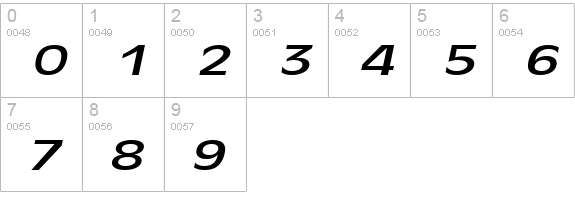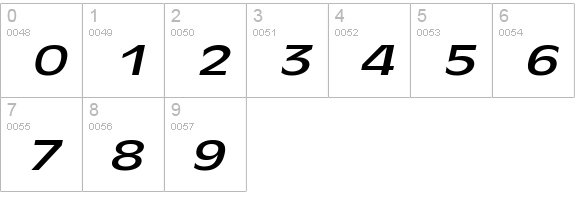
Antiqua 101 Extended Italic Font Details
Antiqua 101 Extended Italic is a distinctive, extended-width, italic variant in the Antiqua typeface family \xE2\x80\x94 well suited to design and typography projects.
Antiqua 101 Extended Italic font is a timeless and elegant typeface that exudes sophistication and charm. Its slanted design adds a touch of flair and refinement to any project, making it perfect for use in editorial design, branding, and more. The elongated letterforms of Antiqua 101 Extended Italic create a sense of movement and fluidity, drawing the eye along each character with grace and style. What's even better is that Antiqua 101 Extended Italic font is available for free download at FontsMarket.com. This means you can easily access this exquisite typeface to elevate your designs without any cost. Don't miss out on the opportunity to enhance your projects with the beauty and elegance of Antiqua 101 Extended Italic font - download it today and start creating stunning visuals that stand out from the crowd.